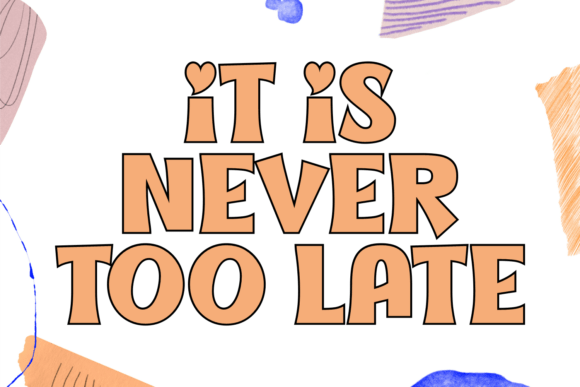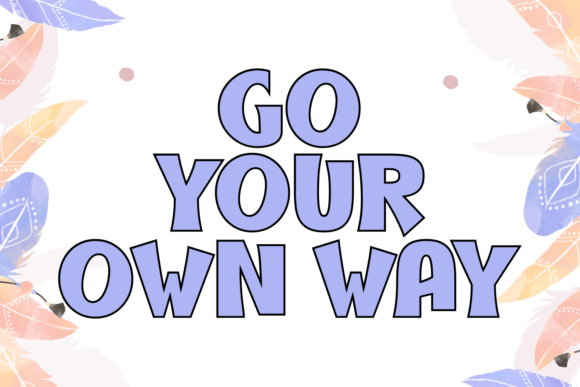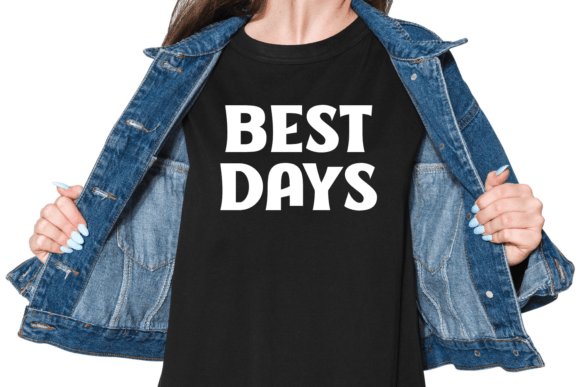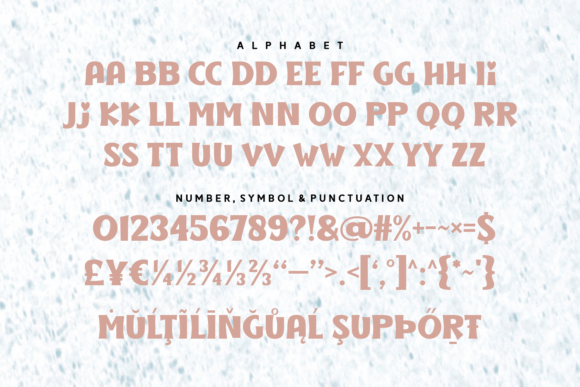
Unlock the Beauty of Kindly Share Font
Have you ever stared at a beautiful hand-drawn design and wished you could capture its essence? For designers, that moment of inspiration is a constant pursuit, and for those who crave the perfect display font, it’s a moment of joy. Enter the “Kindly Share Font,” a masterpiece that exudes elegance and authenticity in every stroke.
Designed with hand-drawn inspiration, this font is a popular choice for school prints, apparel designs, and social media posts. Its clean and smooth flair provides consistent visual appeal, making it perfect for book covers, branded content, greeting cards, magazine layouts, or engaging logotypes. With multilingual support, the “Kindly Share Font” seamlessly blends into any design, adding a touch of sophistication and allure.
Kindly Share Font Key Features
- Font Family: Kindly Share Font is a sans-serif font family designed for digital use.
- Unique Characteristics: Kindly Share Font features a friendly, approachable feel with rounded edges and subtle curves, making it ideal for user interfaces, digital products, and branding materials.
Kindly Share Font Review
As a designer, I was excited to dive into the “Kindly Share Font” and see what it had to offer. Overall, I’d say it’s a solid addition to any designer’s toolkit, but it’s not without its limitations.
The font’s friendly and approachable nature makes it perfect for body text and headlines.
It’s highly legible, even at small font sizes, making it a great choice for digital interfaces.
The font’s weight range is impressive, with plenty of options to suit different design needs.
The font’s lack of a bold weight option may limit its use in certain design situations.
The font’s lowercase ‘g’ and ‘q’ are slightly awkwardly designed, which may affect readability in certain contexts.
Overall, I’d say the “Kindly Share Font” is a great choice for designers who need a friendly and approachable font for body text and headlines. However, it may not be the best option for those who require a more dramatic or attention-grabbing font. With a bit of creativity and careful selection, though, this font can be a valuable addition to any design project.
Getting the Most Out of Kindly Share Font
For optimal results, use Kindly Share Font in conjunction with a high-quality image or design. Experiment with different font sizes and colors to achieve the desired look.
– Headings and titles
– Body text in a clean and minimalist design
3. I’d Appreciate It If You Could Share the Font
I’d Appreciate It If You Could Share the Font is a more polite and appreciative alternative to “Kindly Share Font”. It is suitable for designers who want to express gratitude for someone’s help and maintain a positive relationship. This phrase is a good option when you need to share a font with a colleague or client and want to show your appreciation for their time.